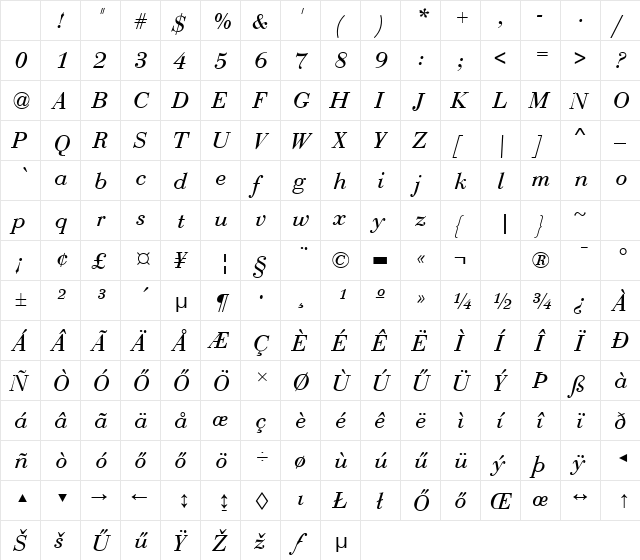
H_Bodoni is a composed and adaptable typeface that performs quietly and consistently across a wide range of design contexts. The slanted form adds forward momentum and visual energy.
Pro Tip: Use H_Bodoni for emphasis, pull quotes, and subheadings where its slanted energy can add rhythm to the layout.